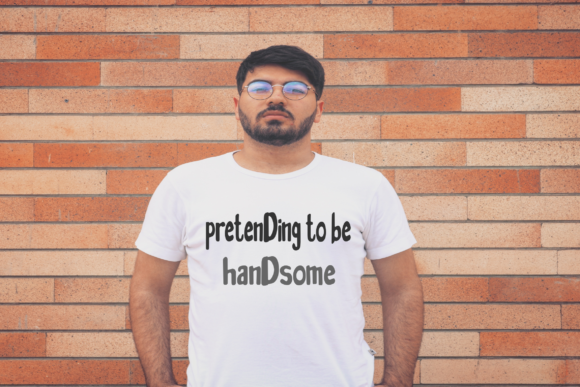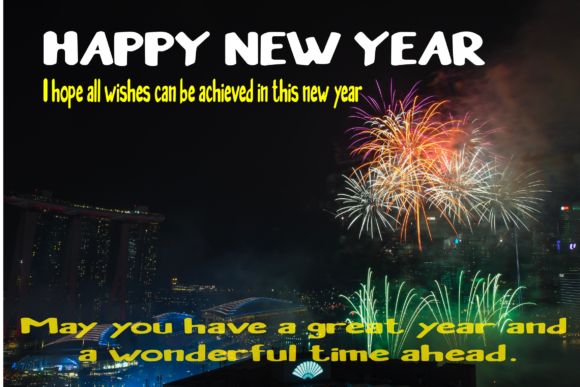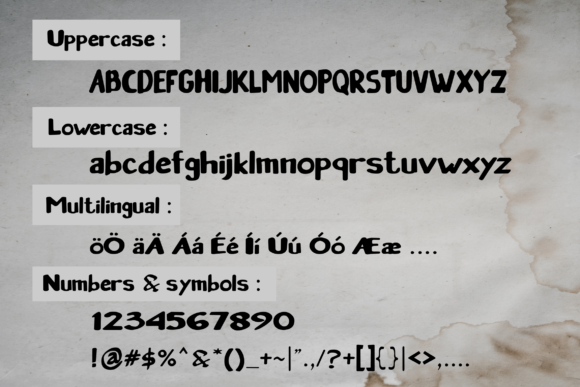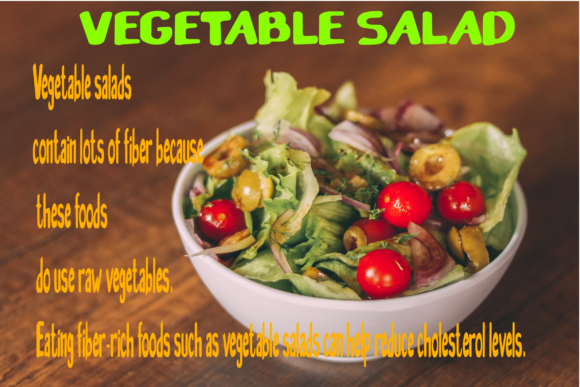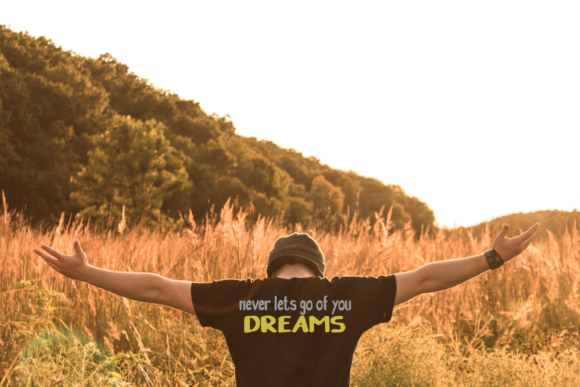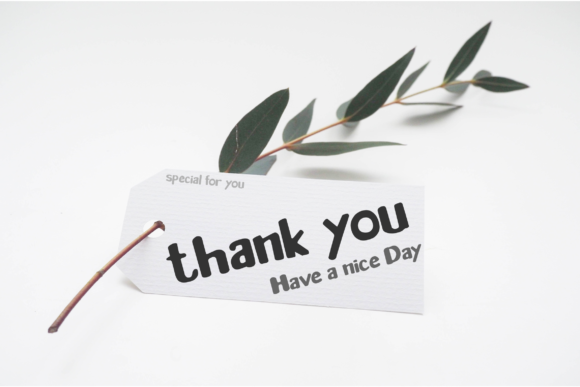
The Joy of Anggraini Font: Adding a Cheerful Vibe to Your Crafts
I’ll never forget the time I was working on a craft project, pouring my heart and soul into it, but something just felt off. The design was beautiful, the colors were vibrant, but the font I was using just wasn’t doing it justice. It was bland, boring, and completely lacked personality. That’s when I stumbled upon Anggraini Font, a unique, fun, and motivating display font that completely transformed my project and added a cheerful vibe to it.
An Honest Review of Anggraini Font
As a designer, I’m always on the lookout for fonts that can help me create stunning visuals. And let me tell you, Anggraini Font does not disappoint. Here’s what I love about it:
- ✨ Unique and playful design that adds a touch of whimsy to any craft
- 💃 Perfect for titles, headings, and short paragraphs of text
- 🎉 Extensive character set, including glyphs and stylistic alternates
Of course, no font is perfect, and Anggraini Font does have a few quirks:
- 🤔 May not be suitable for body text or long paragraphs, as it can be a bit too playful
- ⚠️ Some users may find the font a bit too bold or overpowering
- Take advantage of OpenType features, such as glyphs and stylistic alternates, to add more personality to your text
The Backstory of Anggraini Font
Anggraini Font was designed with one goal in mind: to bring a little joy and whimsy to the world of typography. The designer, inspired by the beauty of Indonesian culture and the playfulness of childhood, created a font that’s both unique and fun. And it’s clear that they’ve succeeded, as Anggraini Font has become a favorite among designers and crafters alike.
| Font Name | Anggraini Font |
| Author | WarejoW |
| What is Anggraini Font best used for? | Anggraini Font is perfect for titles, headings, and short paragraphs of text, especially in craft projects, posters, flyers, and social media graphics. |
| Is Anggraini Font suitable for body text? | No, Anggraini Font is a display font and may not be suitable for body text or long paragraphs, as it can be a bit too playful. |